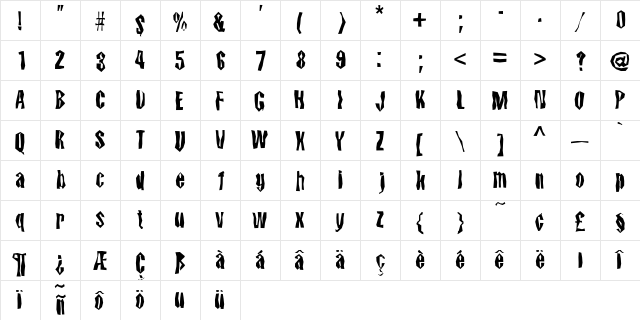
FunkedUp Medium
Design Context for FunkedUp Typeface
FunkedUp trades formality for fun, with bouncy, characterful letterforms that bring warmth and energy to any project.
Great for children's books, toy packaging, family event branding, and casual consumer-facing design.
Font Pairing: Pairs well with a rounded or humanist sans for body copy, maintaining the friendly tone without relying on FunkedUp to carry extended reading.
Pro Tip: Avoid using FunkedUp for long passages of text — it works best for headlines, labels, and short calls to action.